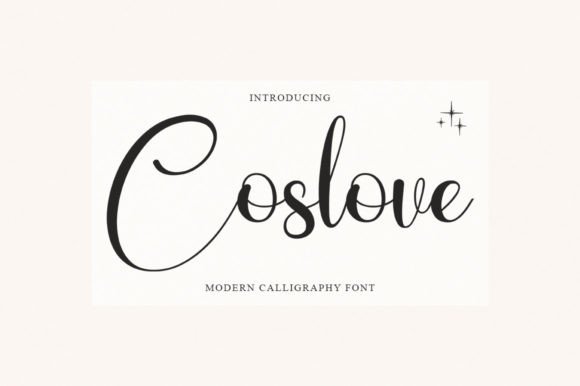
The Charm of Caslove Font: A Designer’s Delight
I’ll never forget the time I was working on a wedding invitation project, and my client asked for a font that was both elegant and playful. I scoured the internet, tried out countless fonts, but nothing seemed quite right. That was until I stumbled upon Caslove Font. ✨ It was love at first sight! The charming, handwritten feel of Caslove perfectly captured the essence of the wedding celebration, and my client was thrilled.
An Honest Review of Caslove Font
- 💕 Elegant and Playful: Caslove Font strikes the perfect balance between elegance and playfulness, making it suitable for a wide range of design projects.
- 🌈 Versatile: Caslove looks stunning on wedding invitations, thank you cards, quotes, greeting cards, logos, business cards, and more.
While Caslove Font is a beautiful font, there are a few things to keep in mind: ⚠️
The Story Behind Caslove Font
While the true story behind Caslove Font remains a mystery, it’s easy to imagine that it was created by a designer who wanted to capture the essence of handwritten elegance. Perhaps they were inspired by vintage love letters, elegant wedding invitations, or the flowing script of a master calligrapher.
| Font Name | Caslove Font |
| Author | IRF Lab Studio |
| Is Caslove Font suitable for body text? | While Caslove Font is beautiful, it’s primarily designed for display purposes, like headings and titles. For body text, you might prefer a more legible font. |